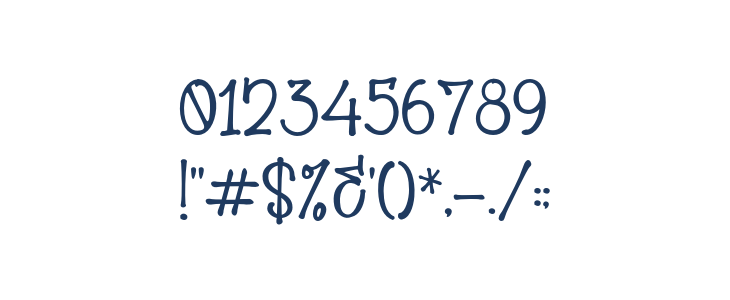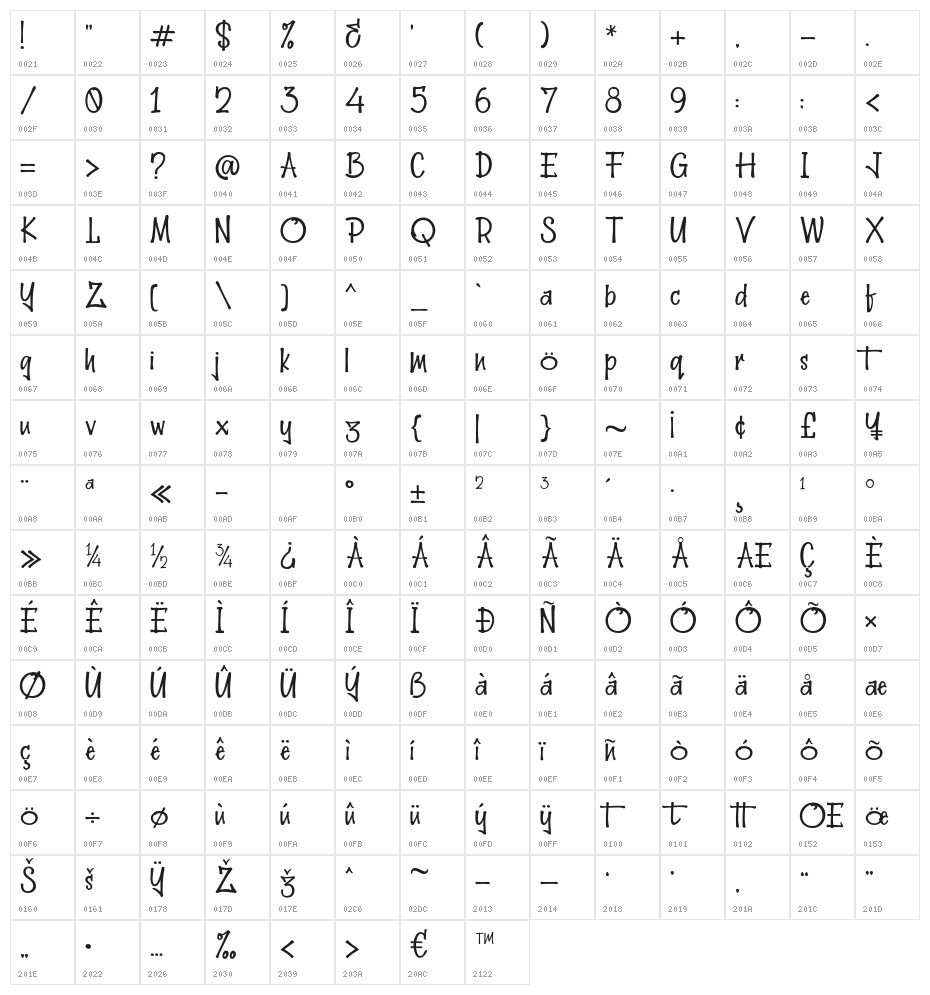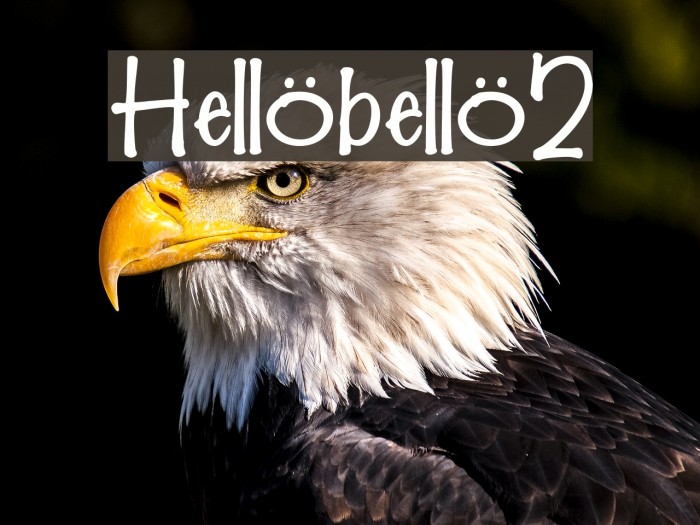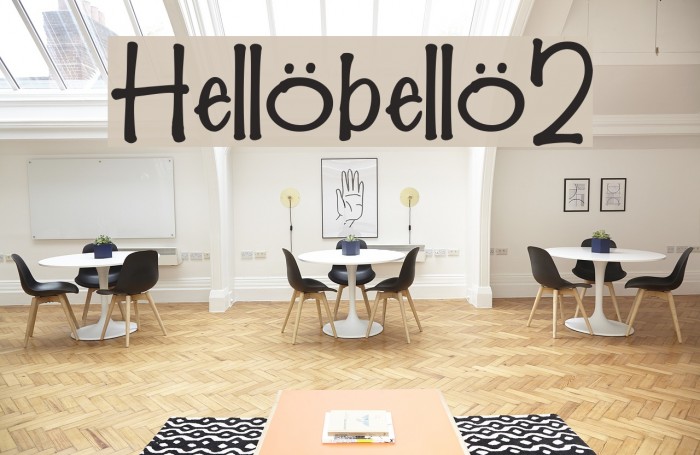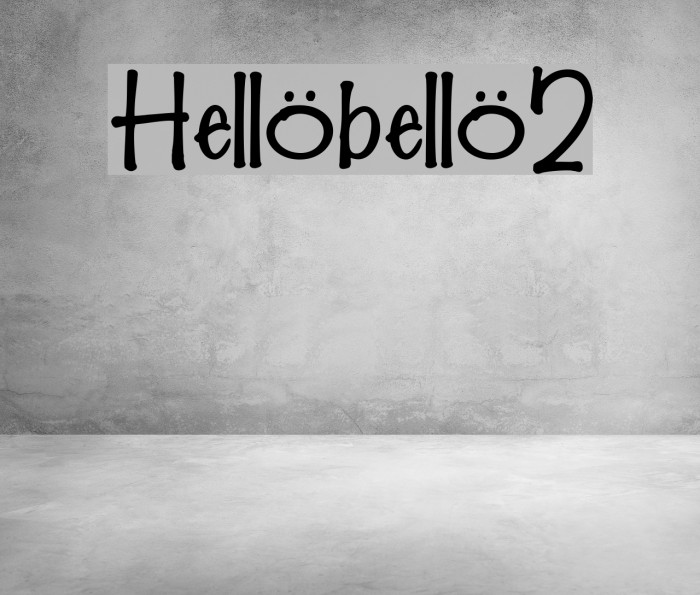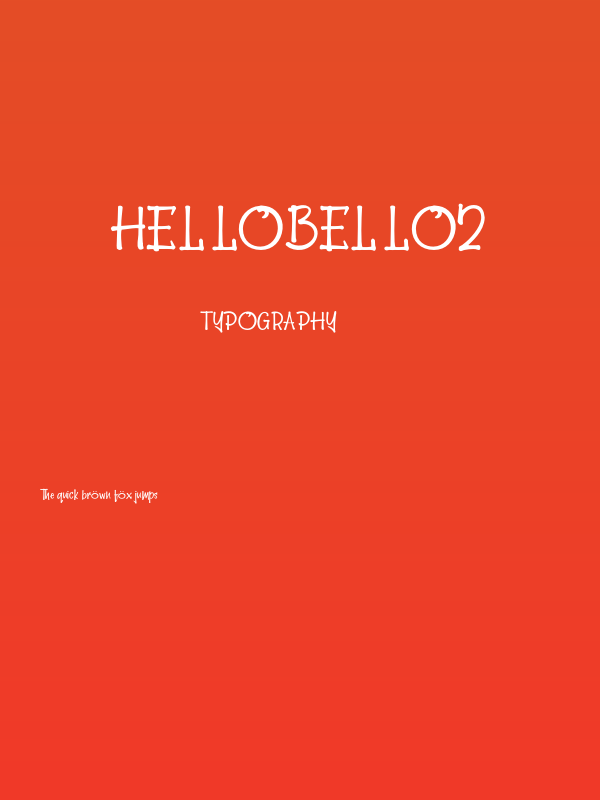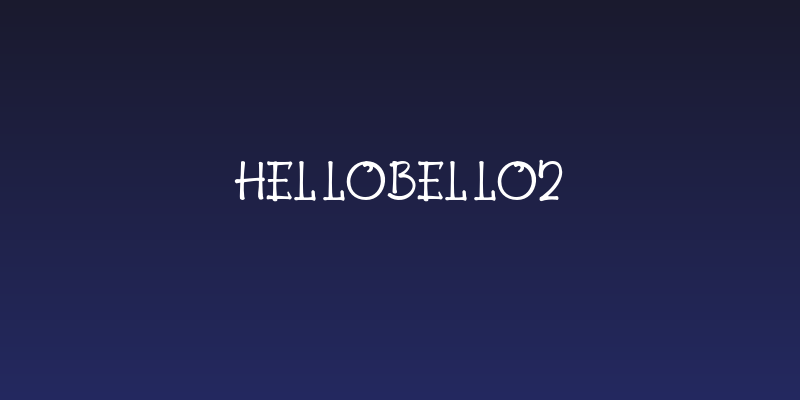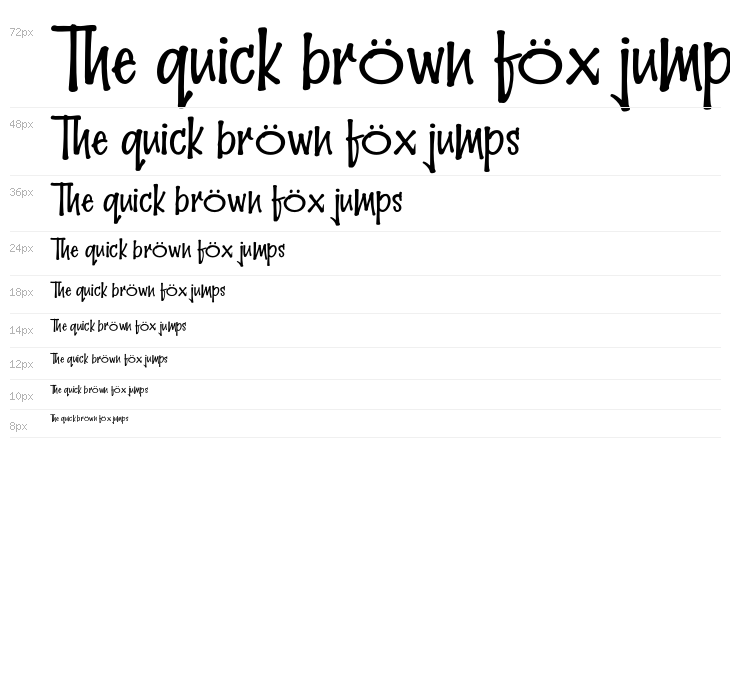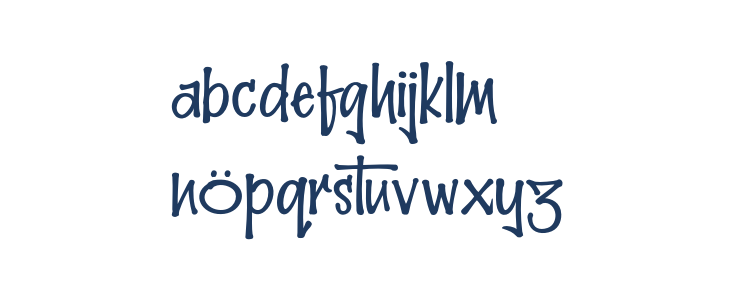
Hellobello2 Font
Hellobello2 Description
This font features a playful and whimsical style, characterized by its hand-drawn appearance and irregular strokes. The uppercase letters are tall and slightly narrow, with a casual, informal feel. The lowercase letters maintain a consistent style with a touch of quirkiness, evident in the varied heights and playful loops. Numbers are bold and clear, matching the overall playful aesthetic. Special characters are creatively designed, adding to the font's unique charm. This font is perfect for projects that require a fun and informal touch, such as children's books, playful branding, or creative posters.
| Proposed Projects | Ideal for children's books, playful branding, creative posters, and informal invitations. |